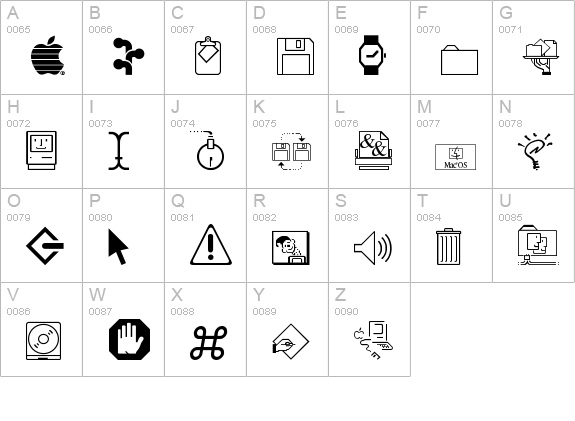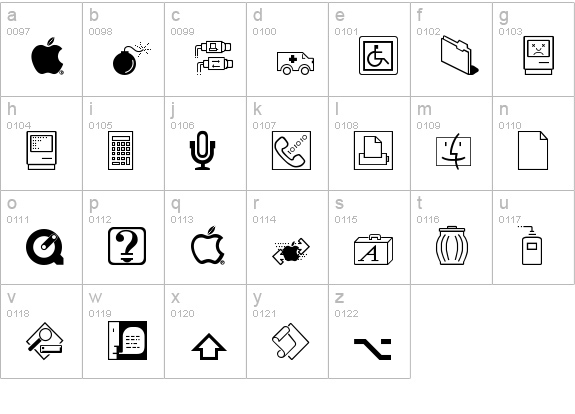
Mac Dingbats Font Details
Introducing Mac Dingbats, a captivating and versatile font that is sure to add a touch of playfulness to any design project. This unique typeface is filled with a delightful assortment of whimsical symbols and icons that will capture the imagination of both young and old alike. With its intricate and intricate designs, Mac Dingbats will effortlessly bring life to your creative endeavors. From its captivating doodles to its intricate patterns, this font offers a wide range of visual elements that can be effortlessly incorporated into logos, posters, websites, and more. But what sets Mac Dingbats apart is not just its stunning visuals - it is also the fact that it is completely free! Yes, you read that right. This incredible font is freely available to download at FontsMarket.com, making it accessible to designers, artists, and enthusiasts from all walks of life. Whether you are a professional designer looking to add a touch of whimsy to your latest project or a hobbyist looking to explore the creative possibilities, Mac Dingbats is the perfect choice. Its versatility and charm make it suitable for a wide range of applications, from children's books to greeting cards, from social media posts to branding materials. So why wait? Download Mac Dingbats today and let your creativity soar. With its captivating symbols and icons, this font is sure to add a touch of magic to your designs. And the best part? It's completely free! Don't miss out on this opportunity to enhance your creative arsenal with Mac Dingbats - the font that brings joy and imagination to every project. Download it now at FontsMarket.com and let the creativity flow!